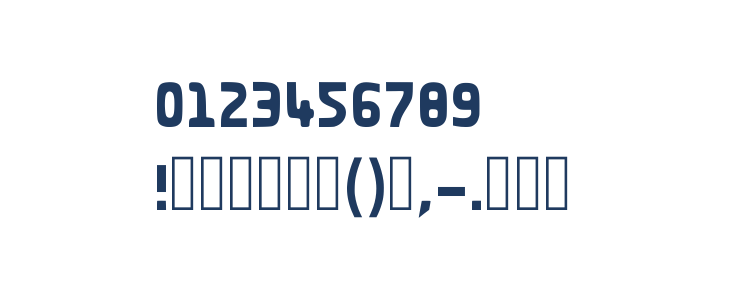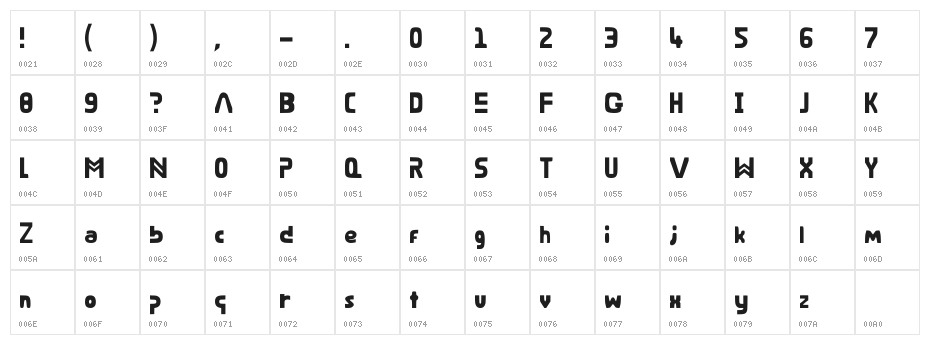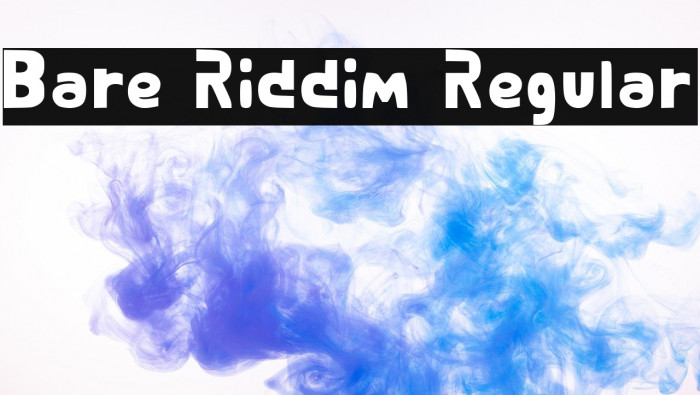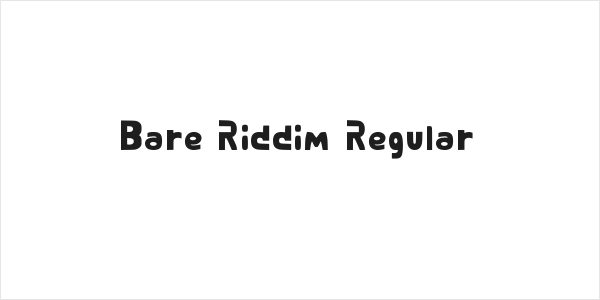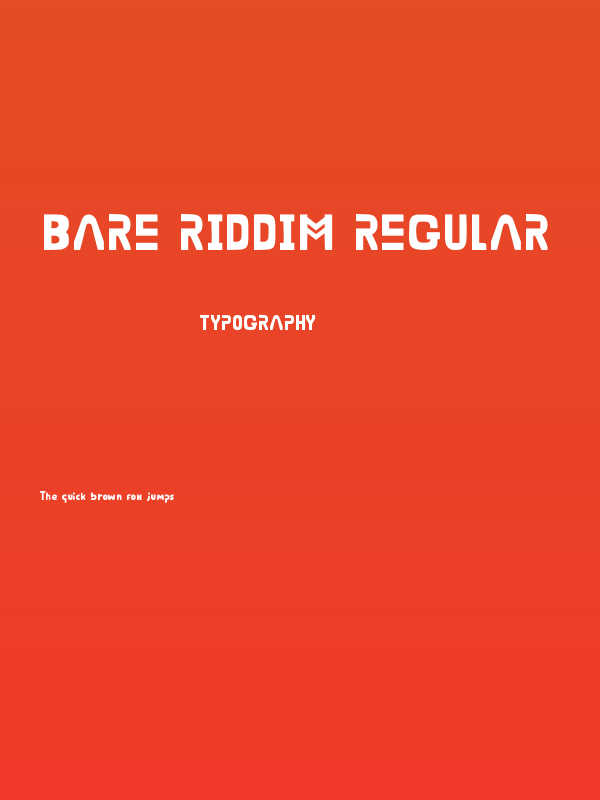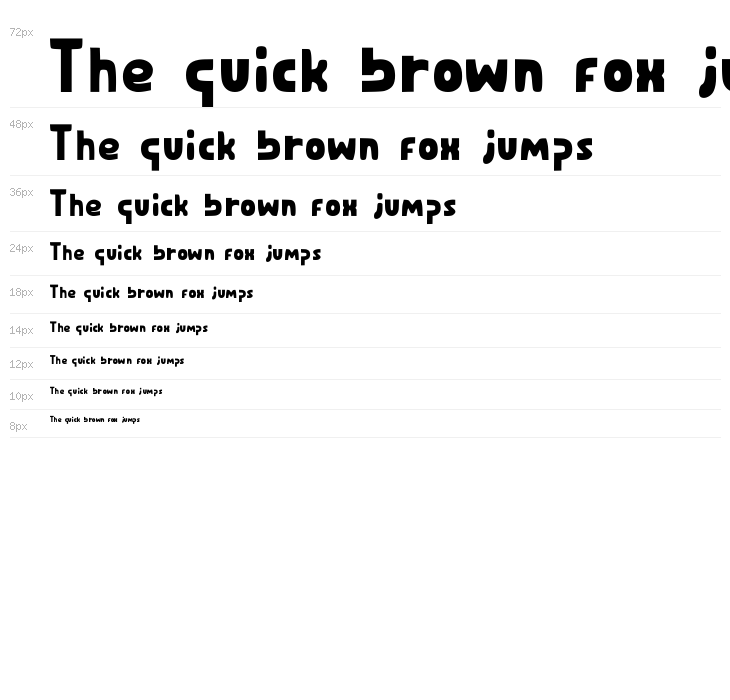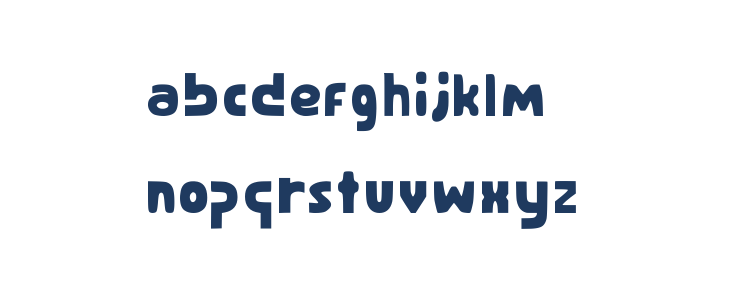
Bare Riddim Regular Font
Bare Riddim Regular Description
This font features a bold and dynamic style with a unique geometric flair. The uppercase letters are characterized by strong, angular lines and a slightly condensed form, giving them a powerful presence. The lowercase letters maintain a similar geometric style but with softer curves, providing a balanced contrast. The numerals are consistent with the overall design, offering a modern and edgy look. Special characters are designed to complement the alphabet, maintaining the font's distinctive style. This font is well-suited for projects that require a bold and eye-catching typeface.